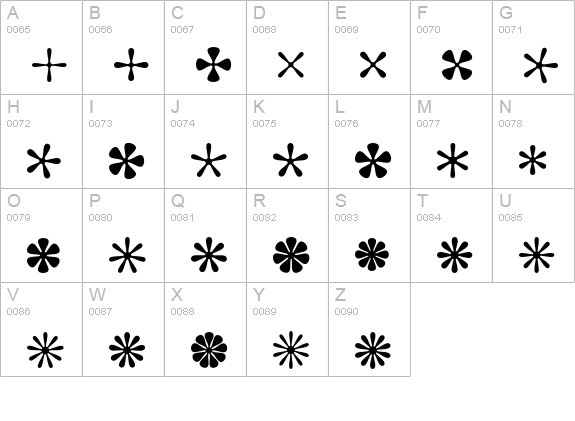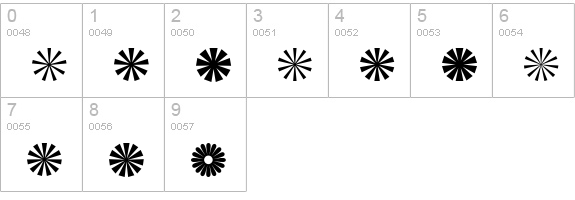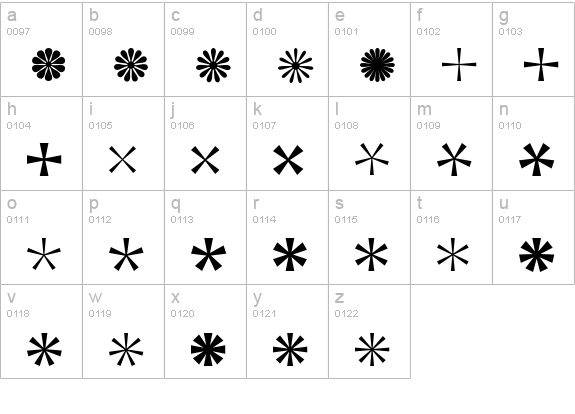
Introducing Asterisp Alpha font - a modern and stylish typeface that exudes sophistication and elegance. With its sleek lines and contemporary design, Asterisp Alpha is perfect for a wide range of projects, from branding to editorial design. What sets Asterisp Alpha font apart is not only its eye-catching appearance but also its versatility. Whether you're creating a logo for a high-end fashion brand or designing a sleek magazine layout, this font is sure to make a statement. The best part? Asterisp Alpha font is completely free to download at FontsMarket.com. That's right, you can enhance your designs with this stunning font without spending a dime. So why wait? Download Asterisp Alpha font today and elevate your projects to the next level!